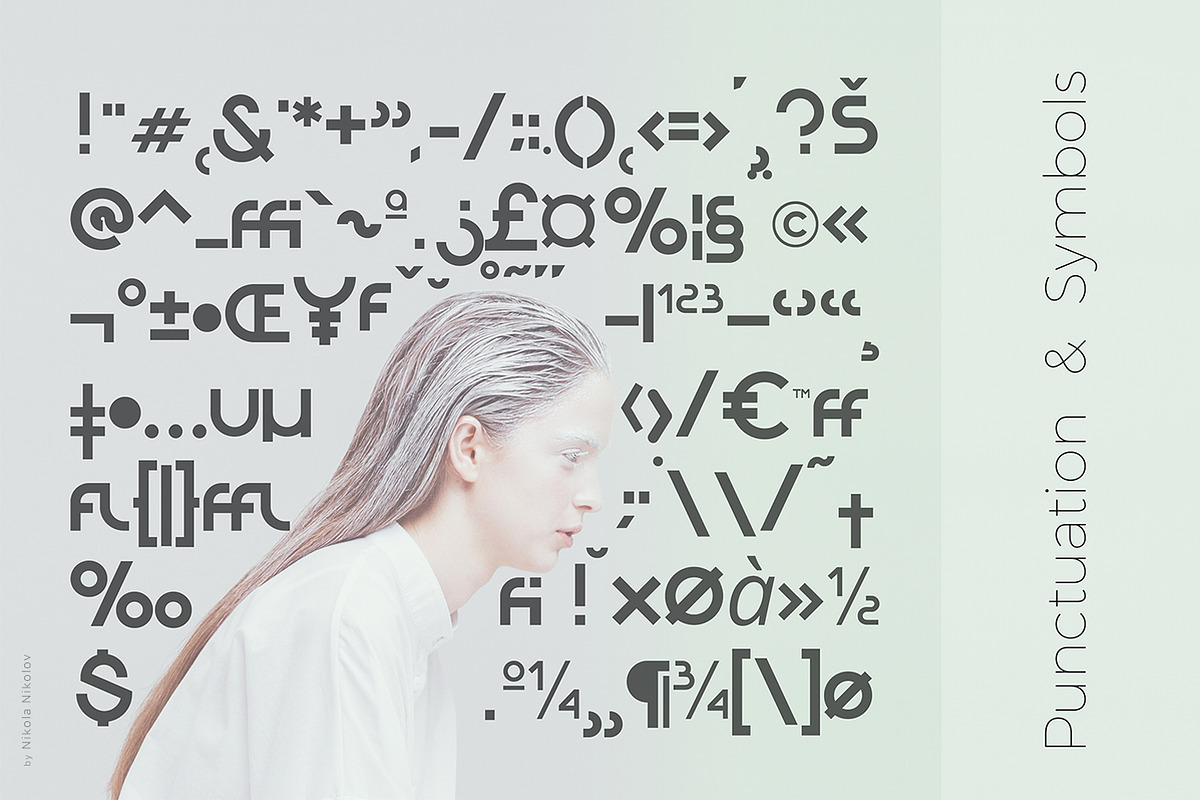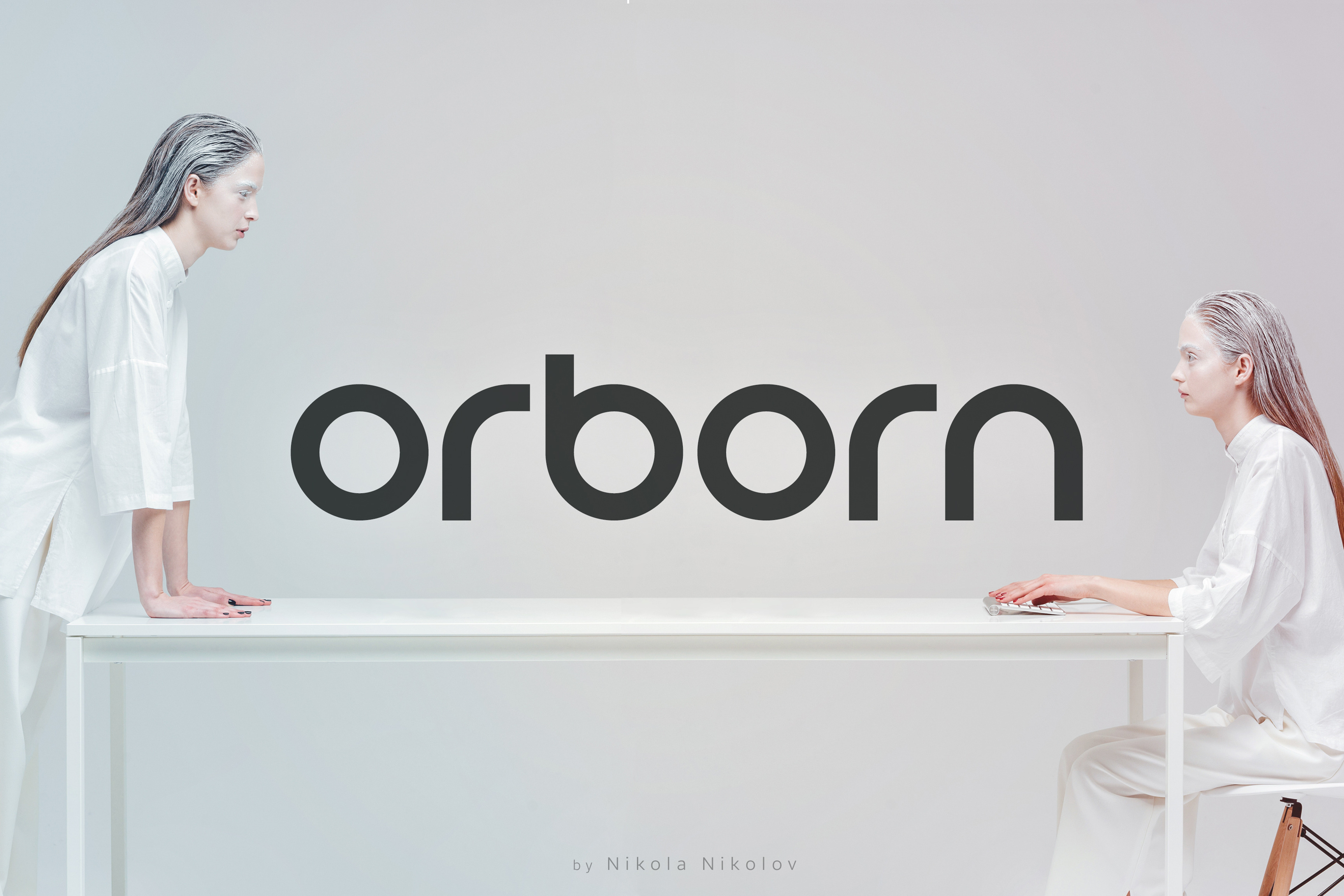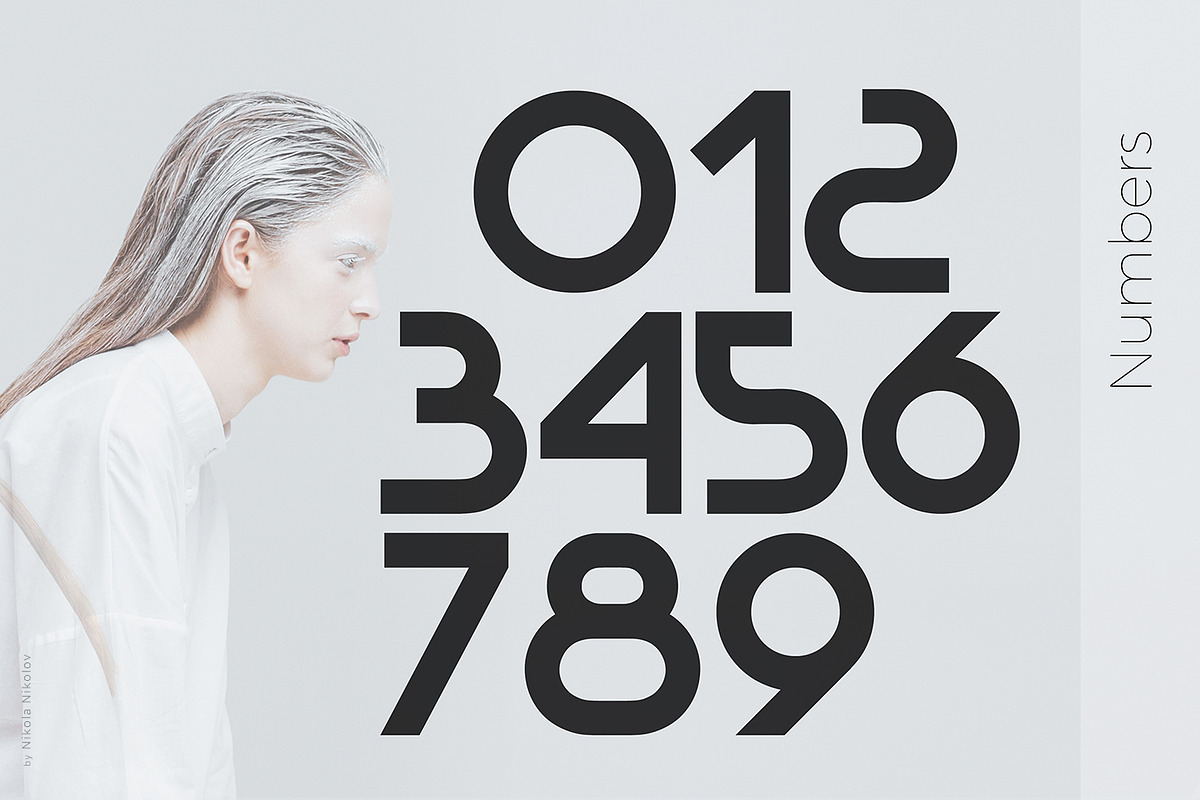
Orborn – Round Futuristic Font
Orborn is a round geometric experimental font, developed for logos, headlines, titles and posters. It features a strong futuristic character while maintaining a subtle retro atmosphere. The foundation of the design is the circle — each glyph is carefully built to preserve circular proportions, resulting in a distinctive yet readable typeface. Orborn was designed with creative freedom in mind, balancing experimental aesthetics with clarity.
Orborn works perfectly for branding projects, logo design, packaging, posters and digital graphics. Its clean circular structure gives it a strong geometric presence, making it ideal for modern, tech-inspired and sci-fi visual identities. The font maintains clarity even at larger display sizes, making it suitable for headlines and impactful typography compositions.
All Caps & Small Caps
Symbols & Punctuation